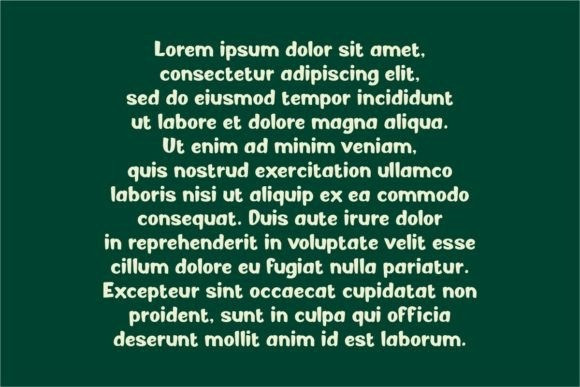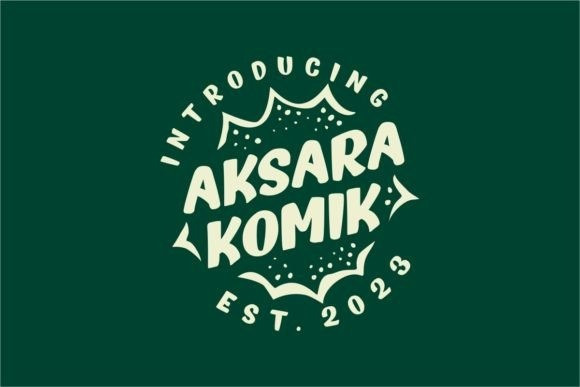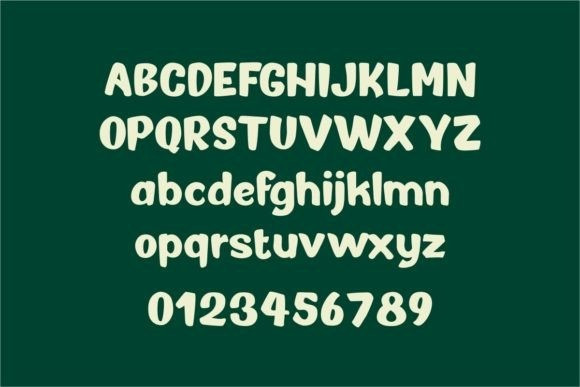
Aksara Komik Font
Aksara Komik Font is a bold and eye-catching display font designed to make your words stand out. With its strong and distinctive style, this font is perfect for adding a playful and dynamic touch to comic books, posters, and headlines. Give your designs a bold personality with Aksara Komik, a font that combines readability with a touch of fun.